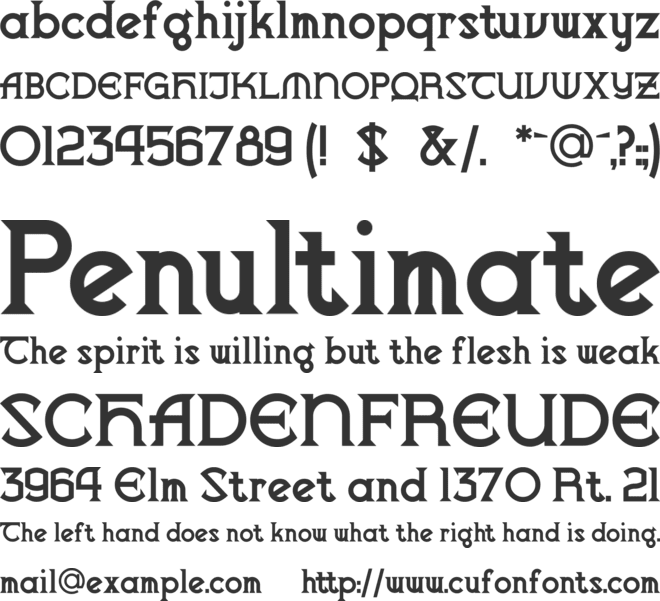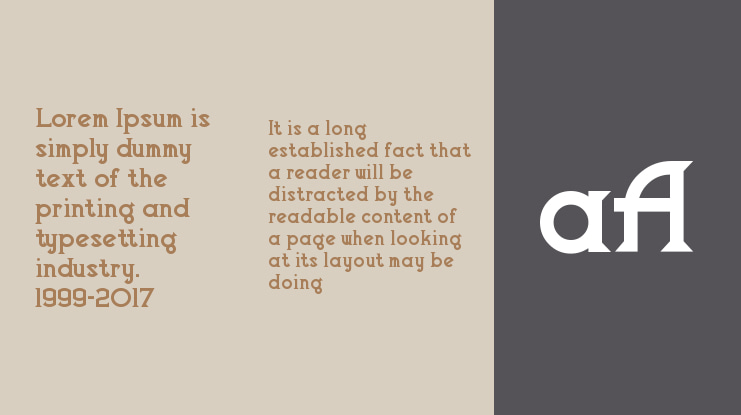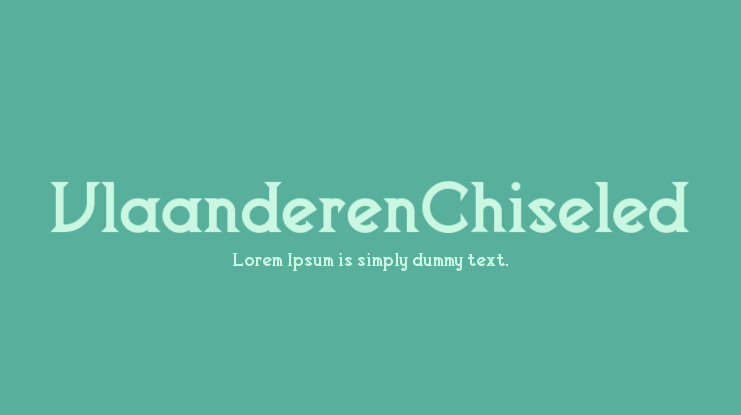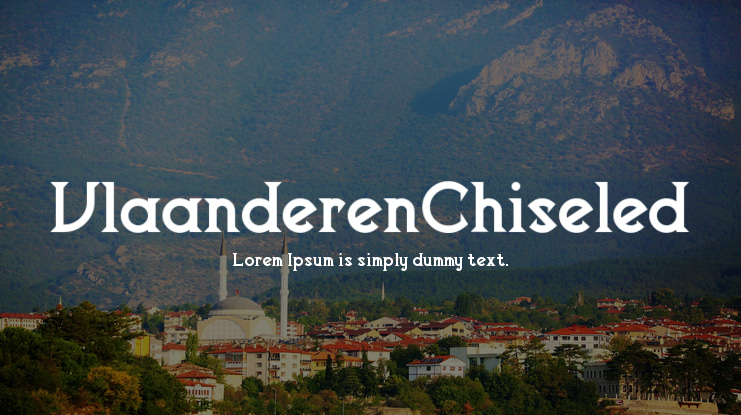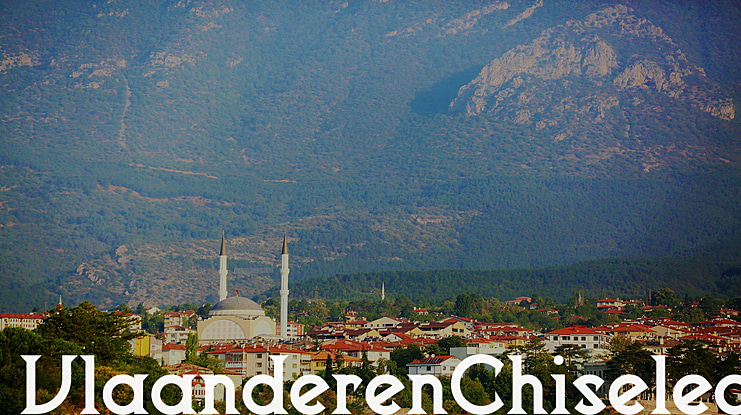
VlaanderenChiseled Font Family
Patterned after an untitled work by Dutch designer André Vlaanderen from 1928. A curious combination of medieval and modern letterforms, this font comes in three flavors — Square, Round and Chiseled — each with its own unique nuances.